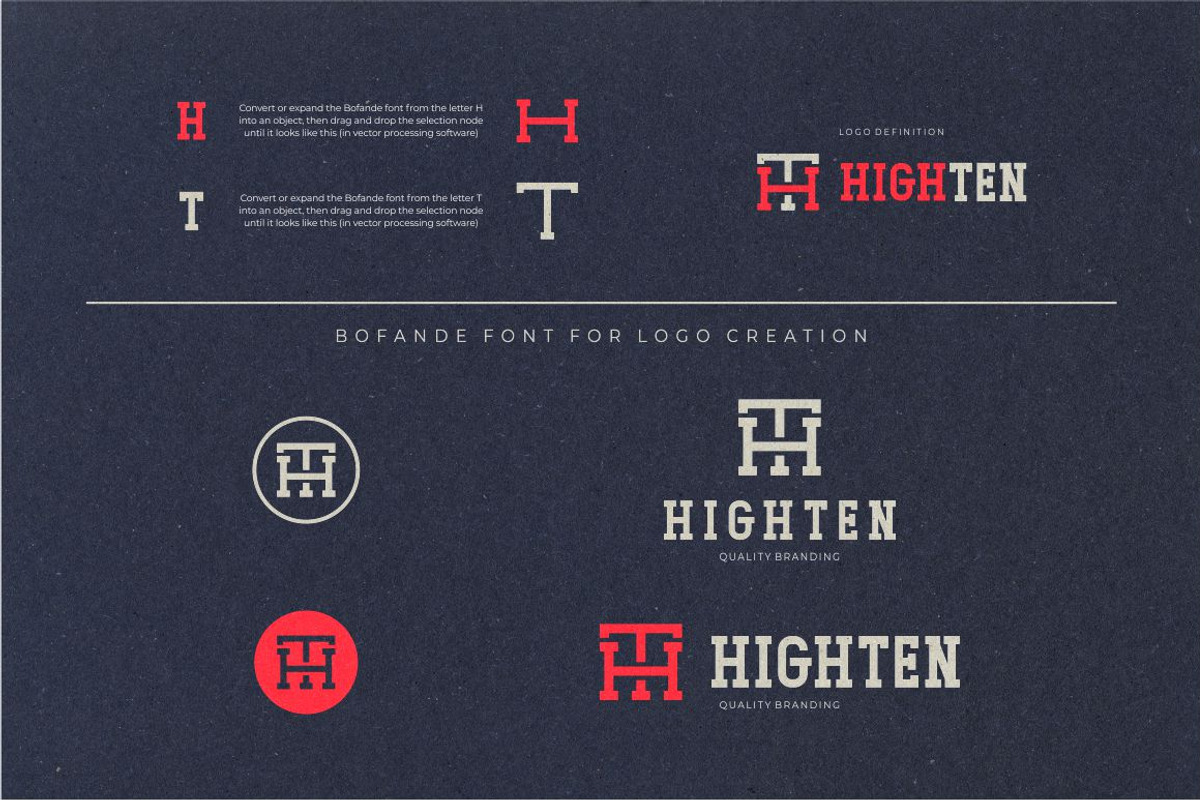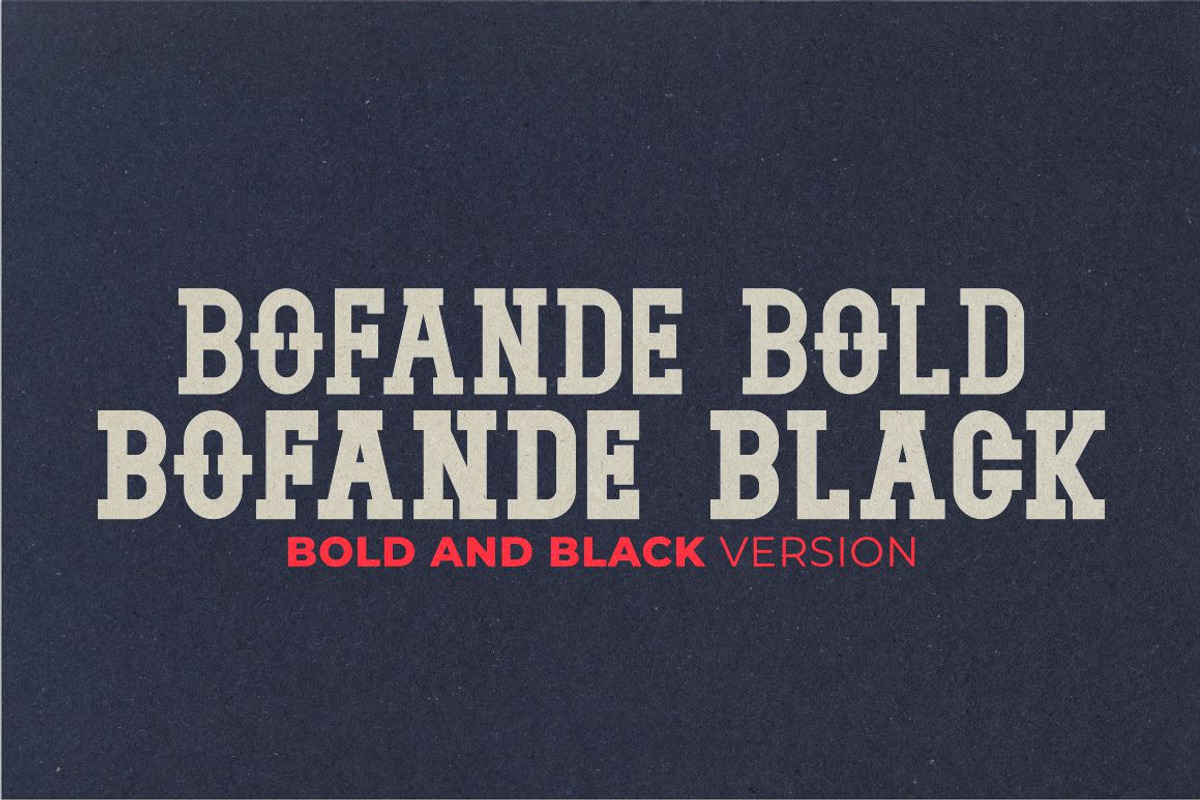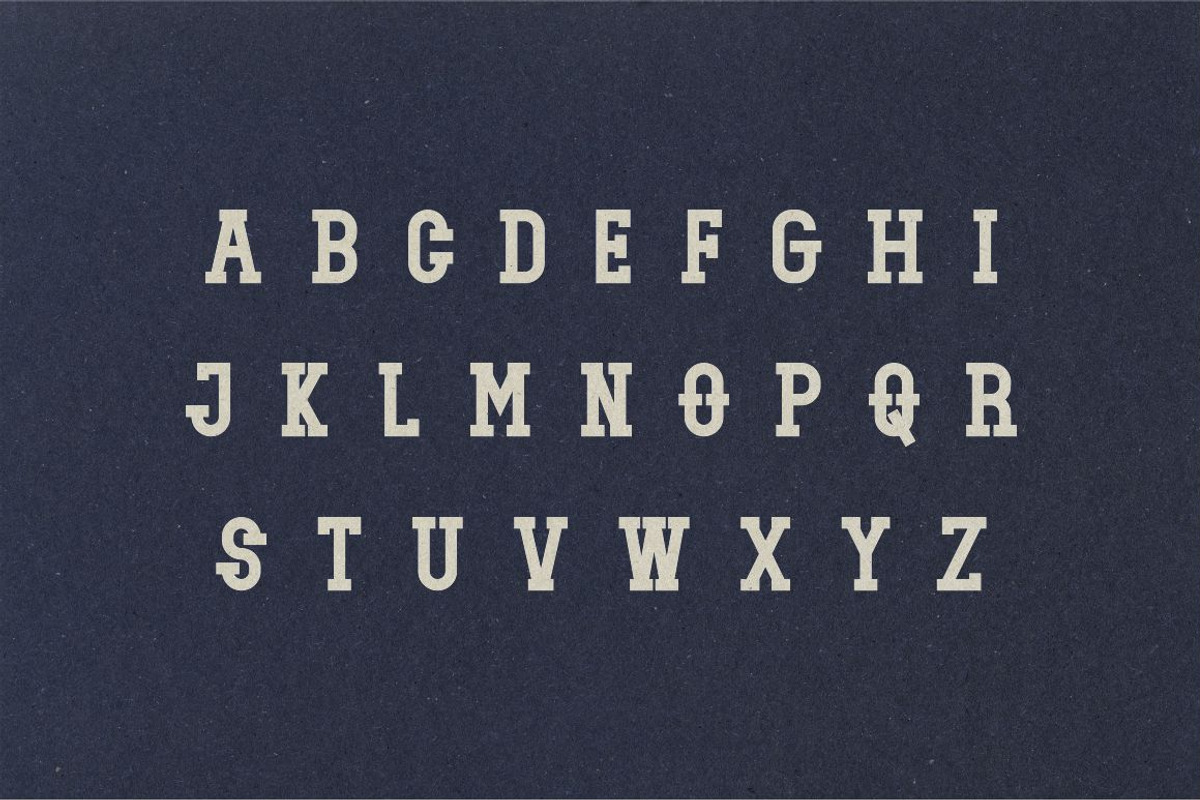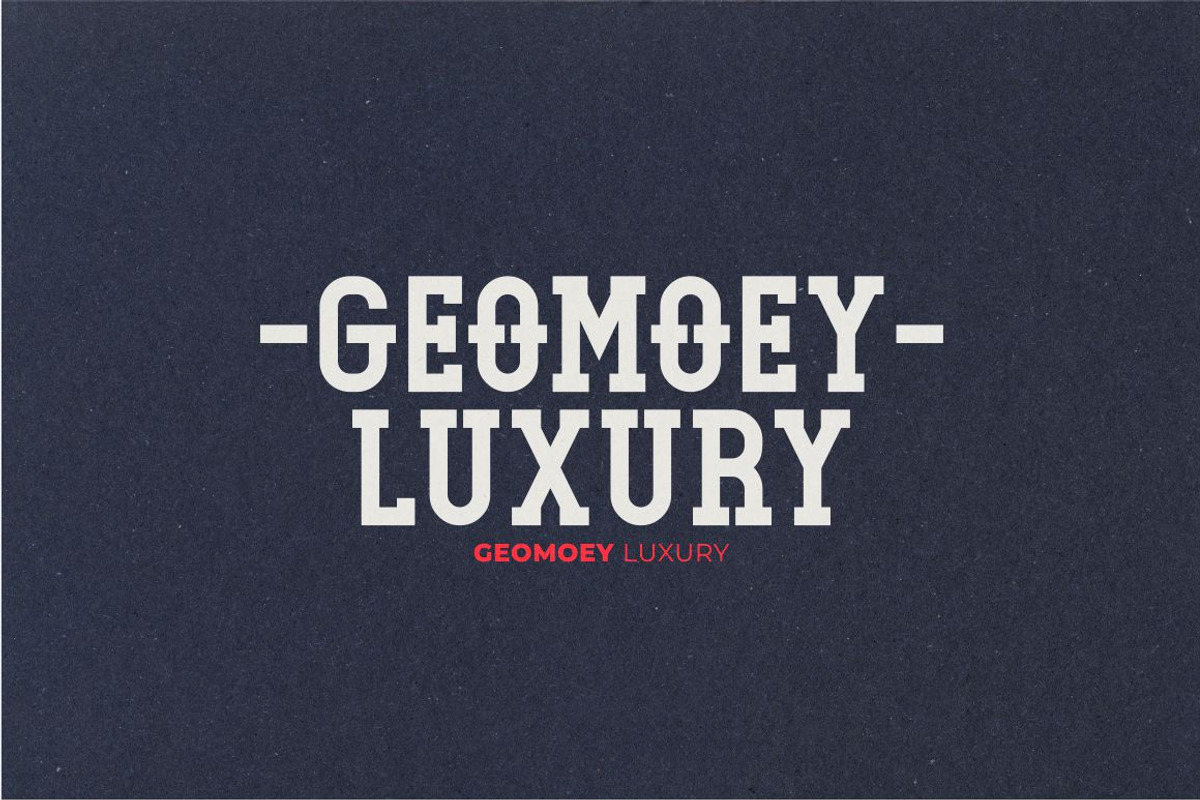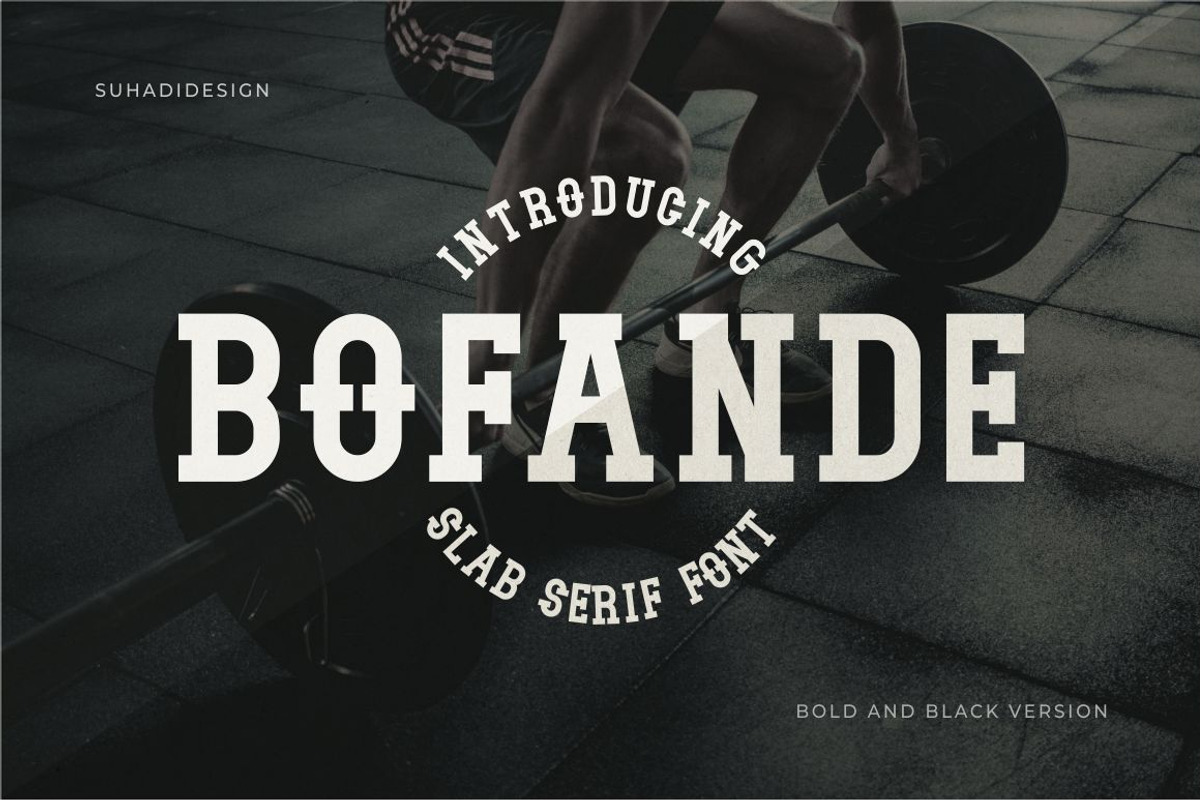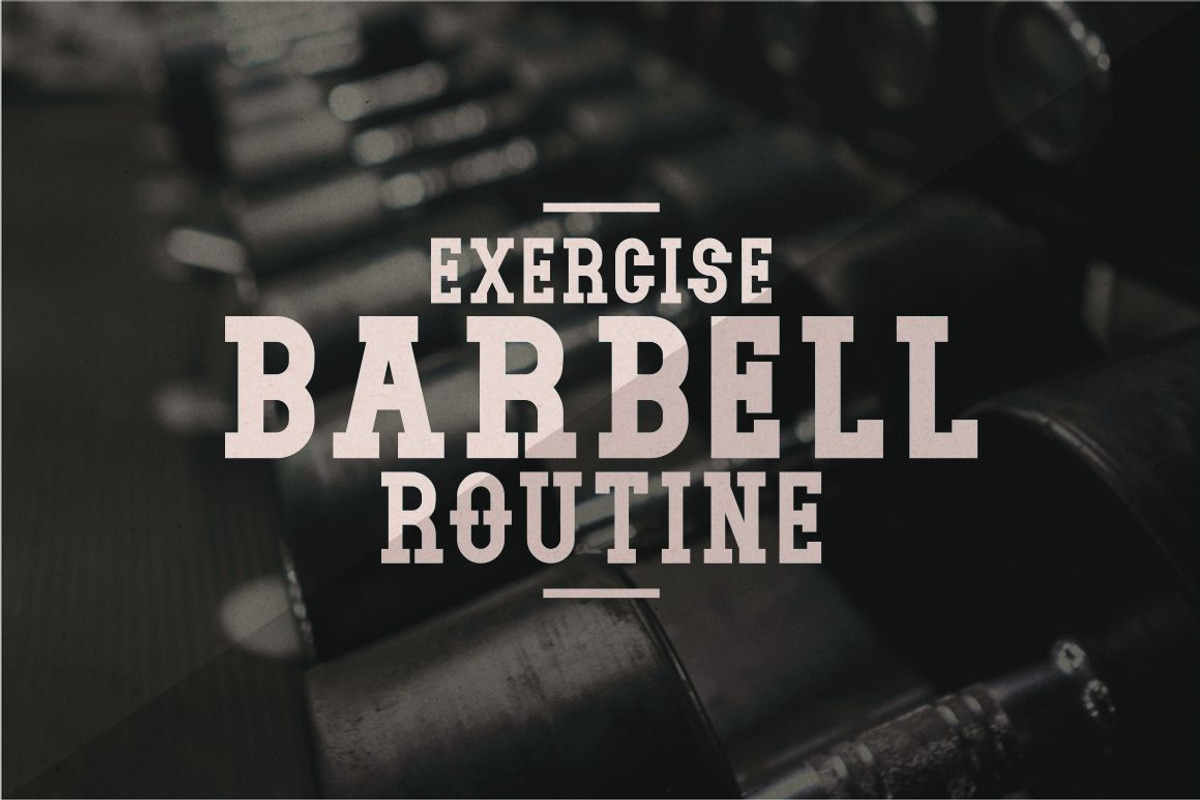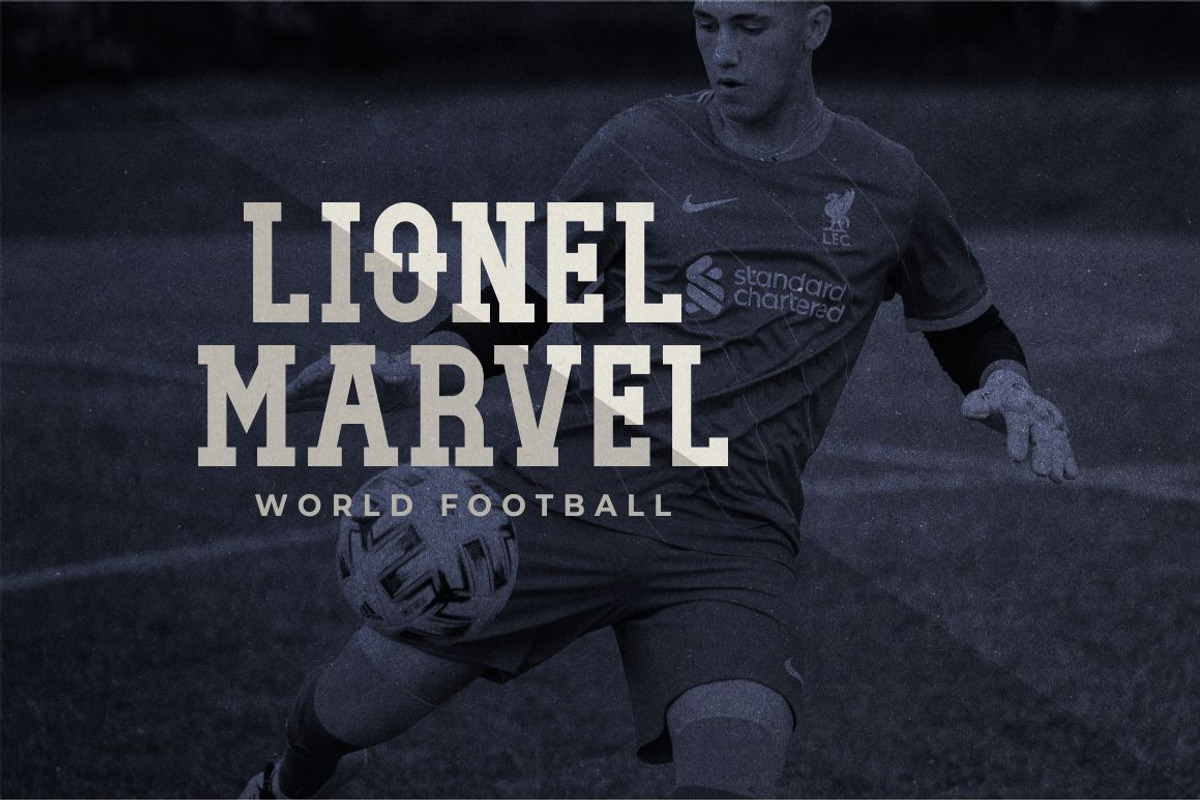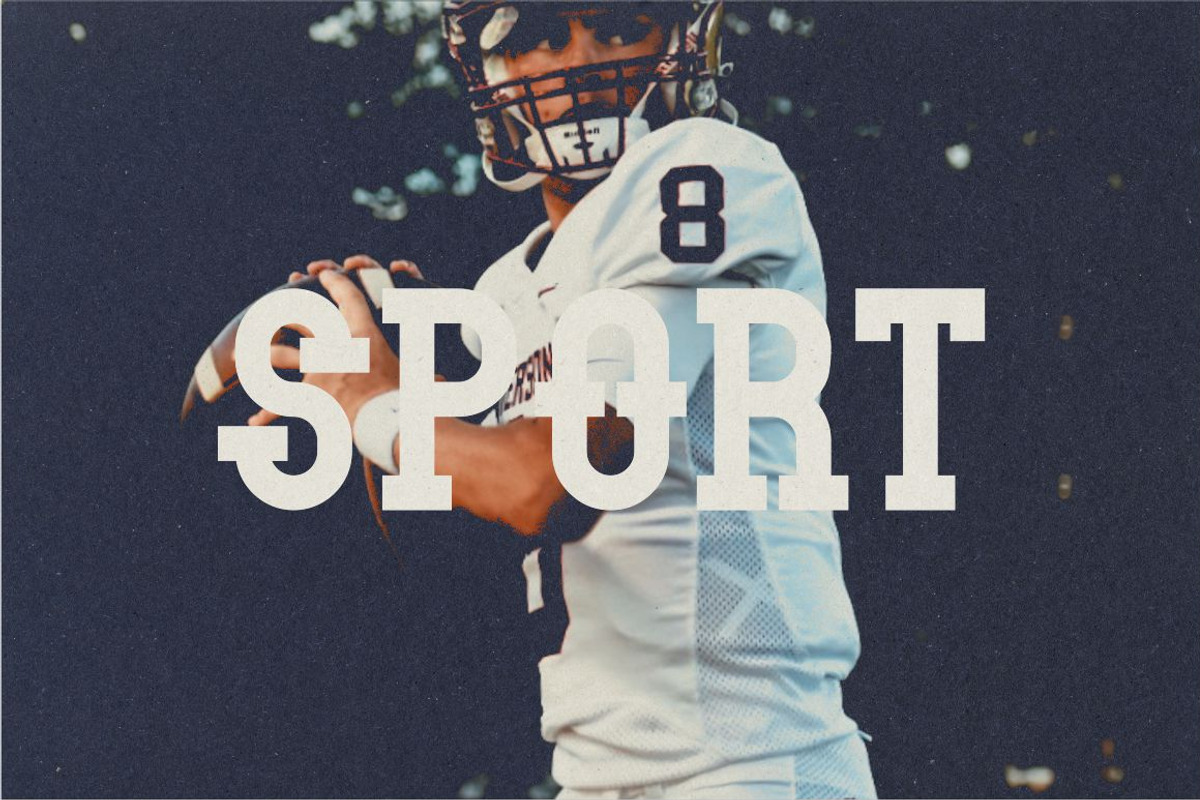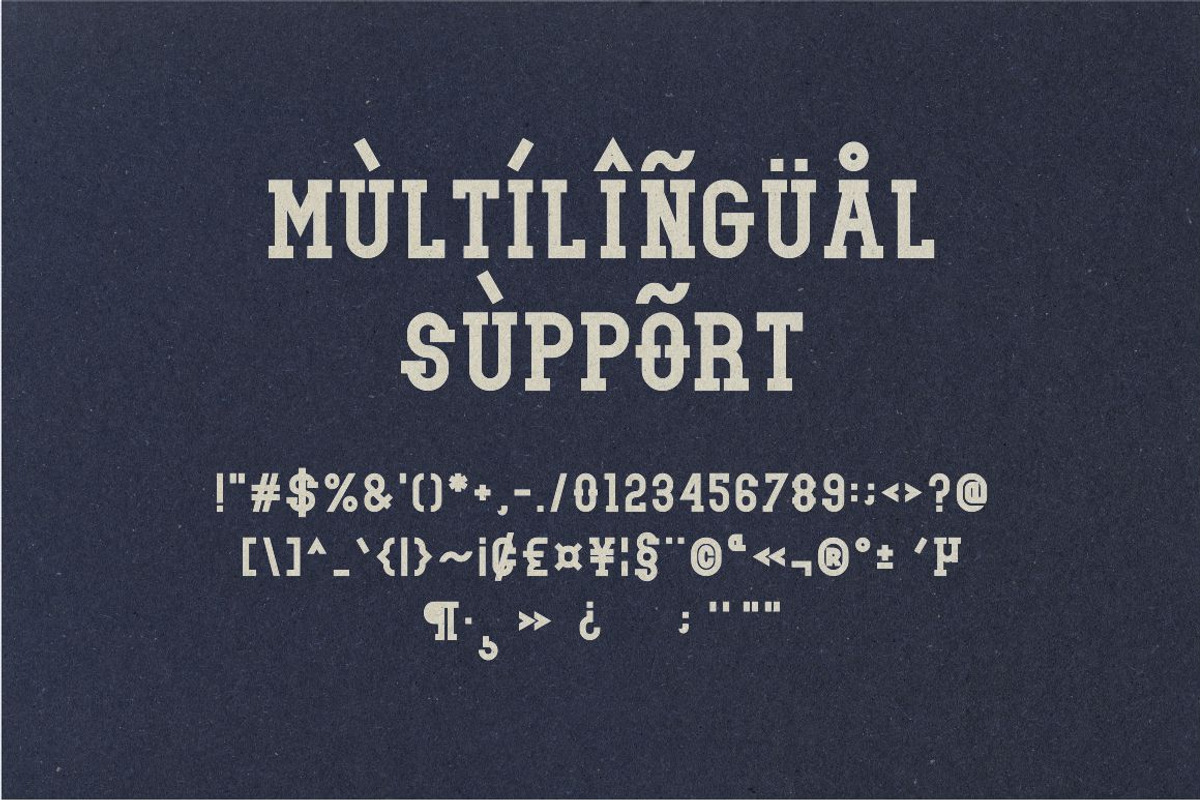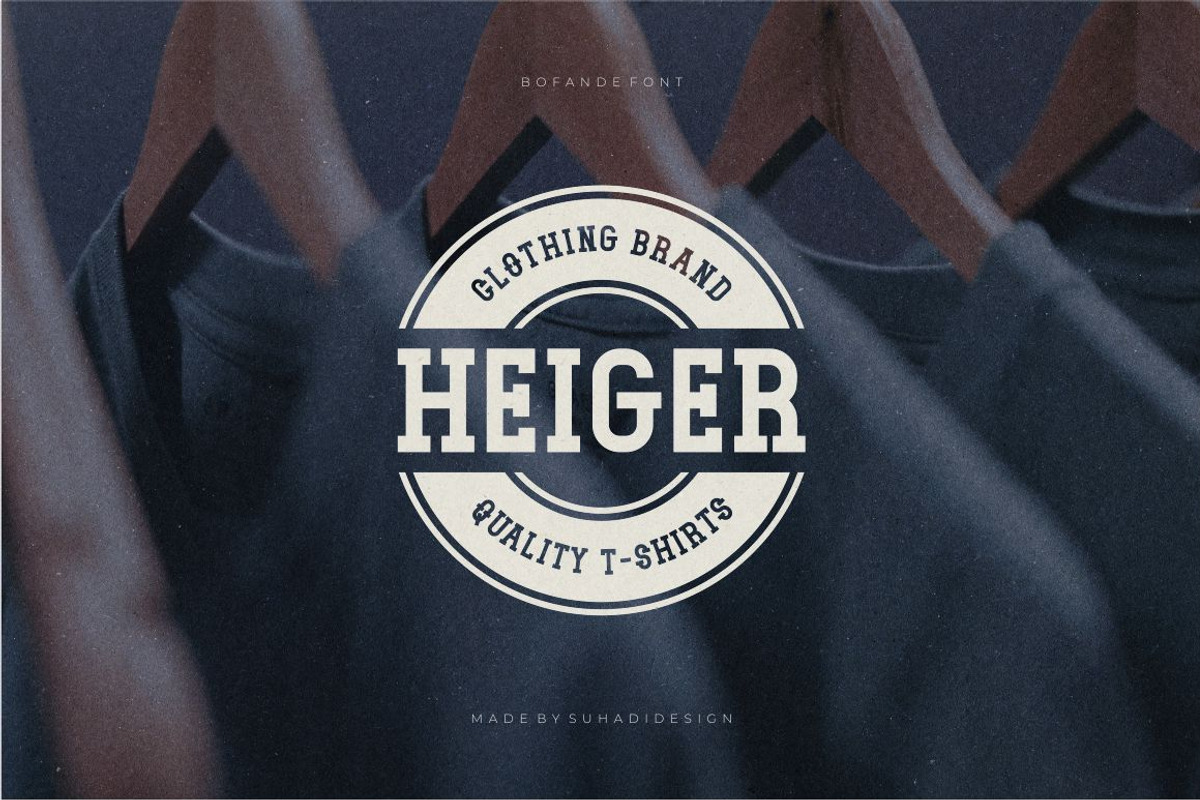
Bofande slab font
Bofande slab serif font
Hi ladies and gentlemen! According to the popular of the market, I decided to create a slab serif font which is in front of you. The Bofande font is a modern and very popular slab serif font, making it a popular search market.
Bofande Font is a great choice for sports fonts, logos, brand names, branding, brands, company names, motivational quotes, and other projects.
• All caps • Bold and Black Version (2 versions) • Multilingual support • Numerical and punctuation